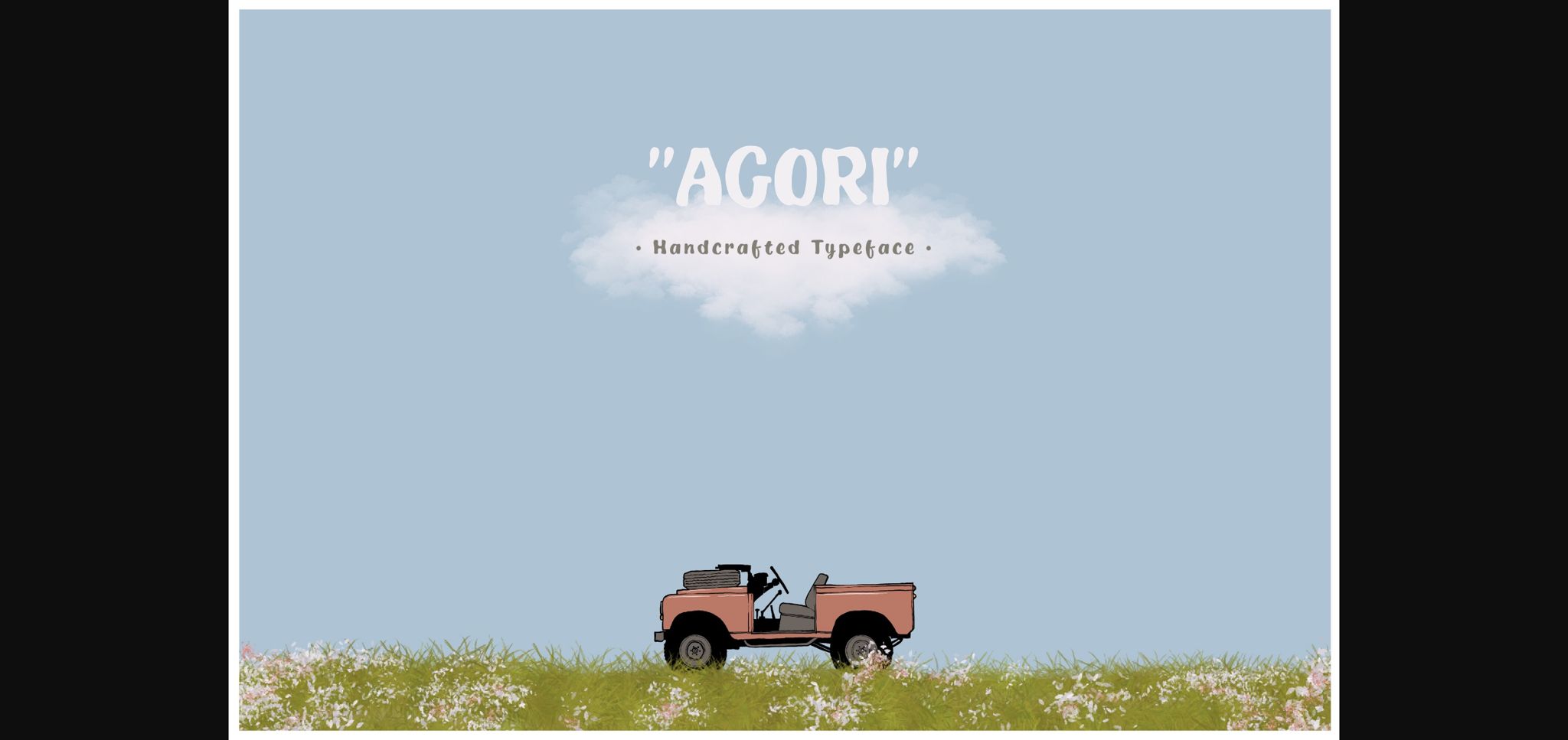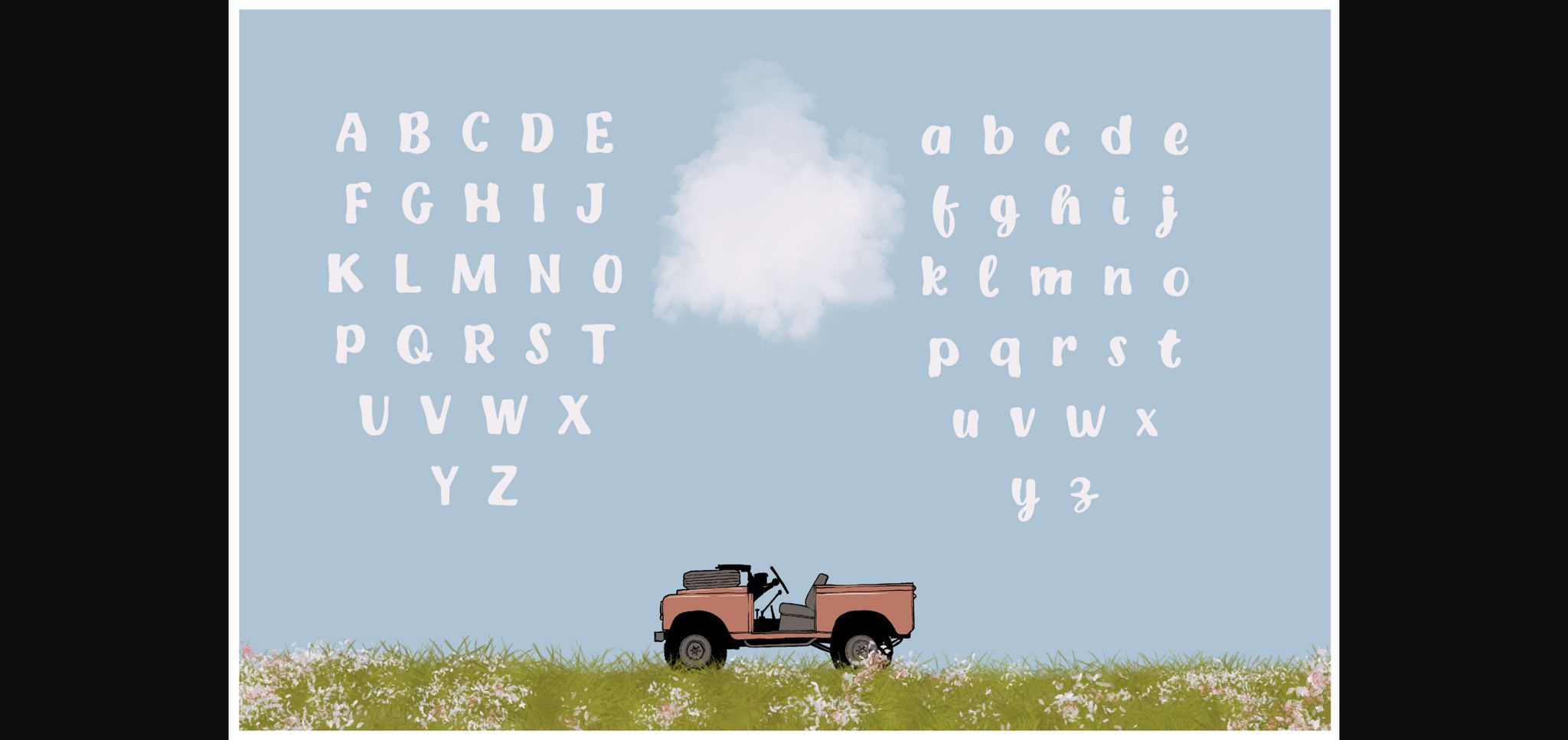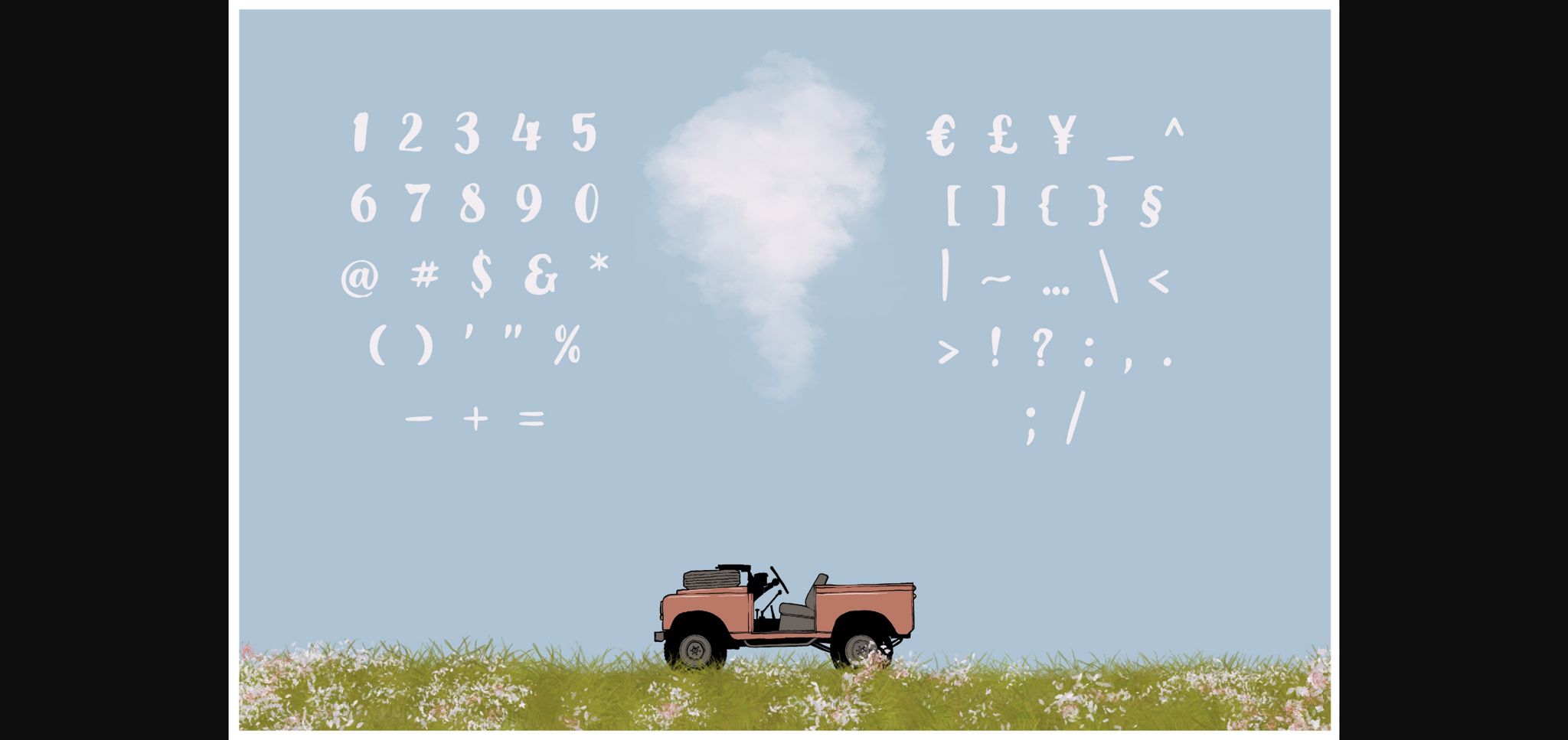
About Agori Font
Experience the timeless allure of Agori, an exquisite handcrafted typeface that epitomizes elegance. Its crisp letters radiate a simplicity that flawlessly complements minimalist aesthetics, whether you’re crafting a definitive logo or infusing text in your favorite quote designs. With Agori, you’re inviting a touch of masterful artistry into every piece of your work. This typeface is not just a tool, it’s an expression of your most creative self.